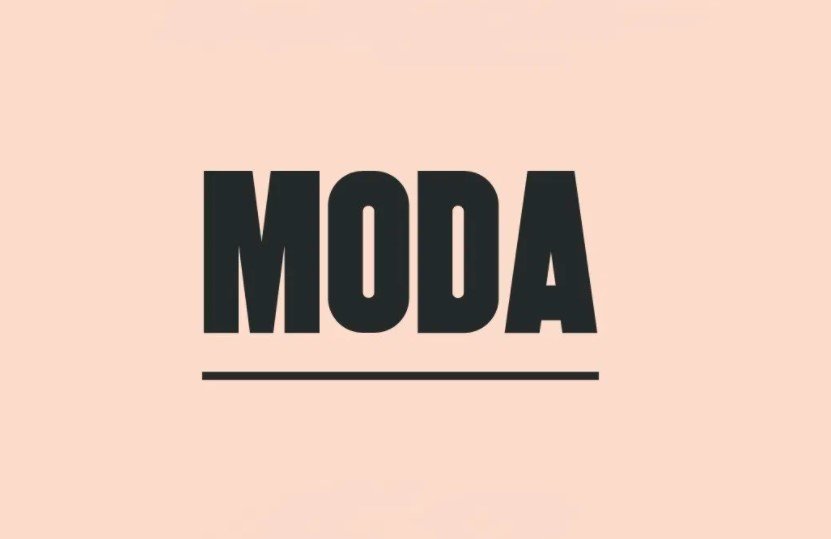
Hey there, we are providing the coolest, lovable, and brilliant sans serif typeface which is Moda Font comes with lots of great and amazing features that you will need to deliver the perfect layouts of your designs.
You can download this perfectly fine typeface that can be used as pairing with sunday nightmare font which is available in bold and regular styles that has some chunky look. It is perfectly suitable for titles and headlines.
View Of Moda Font